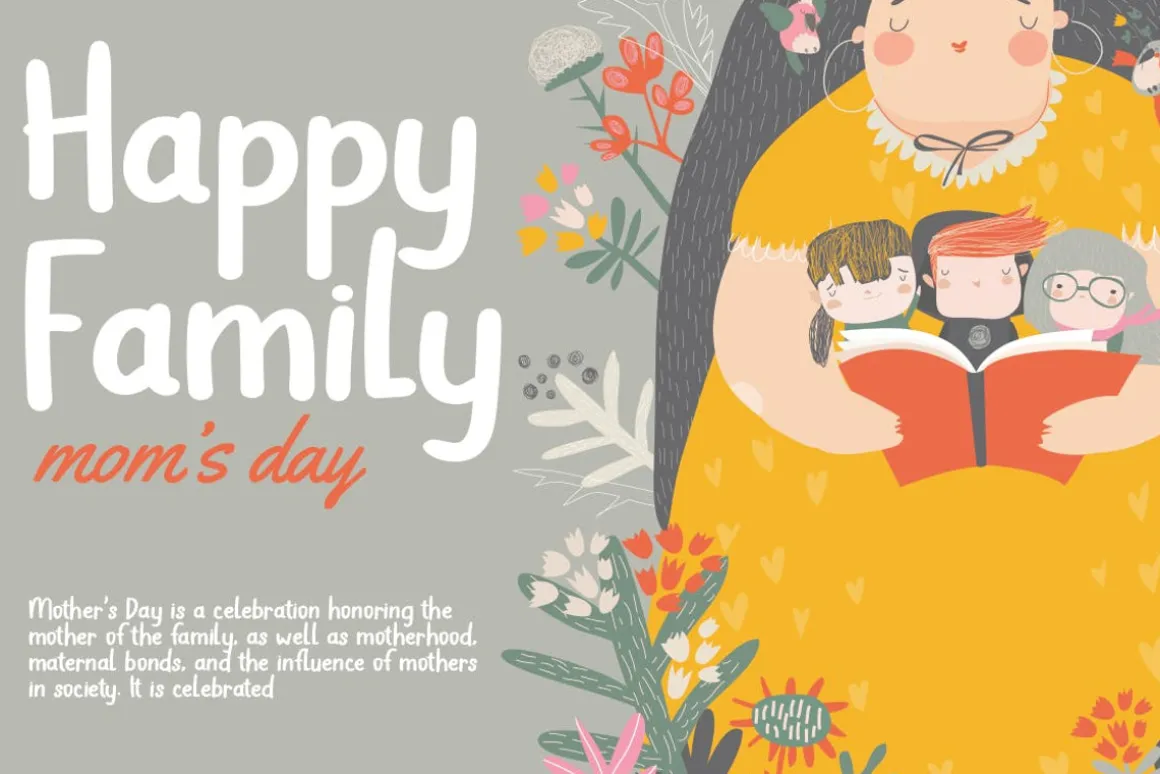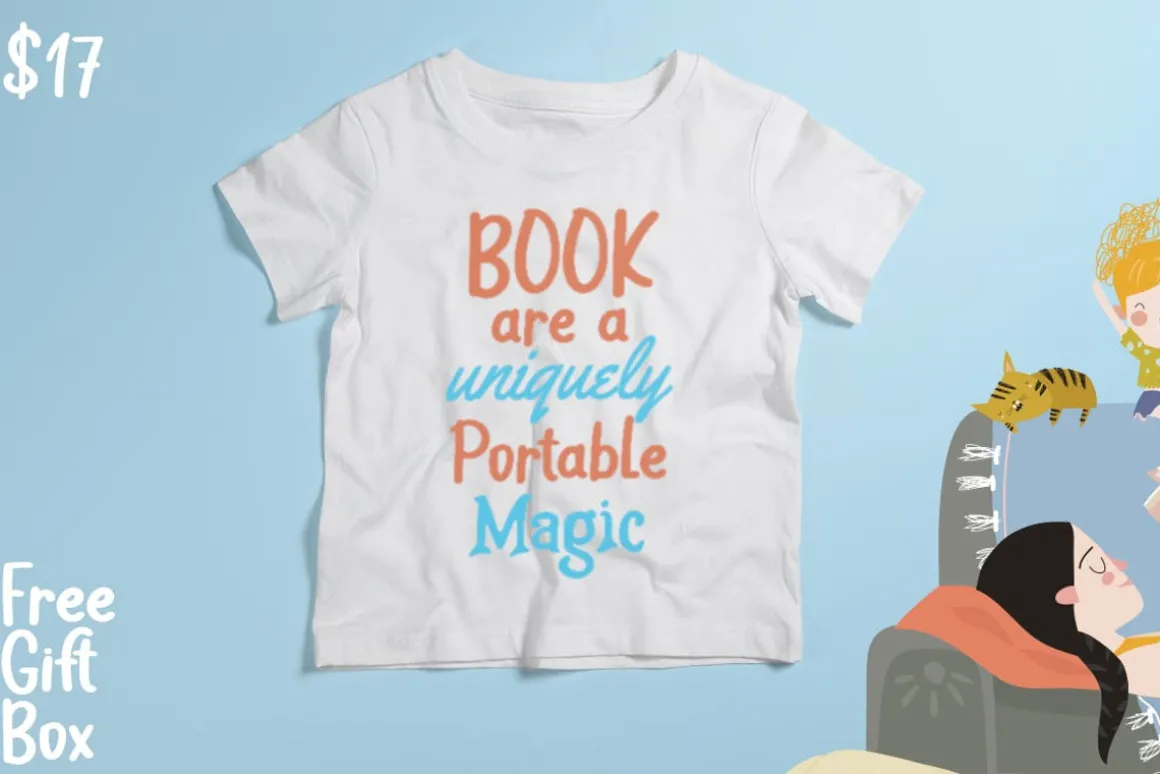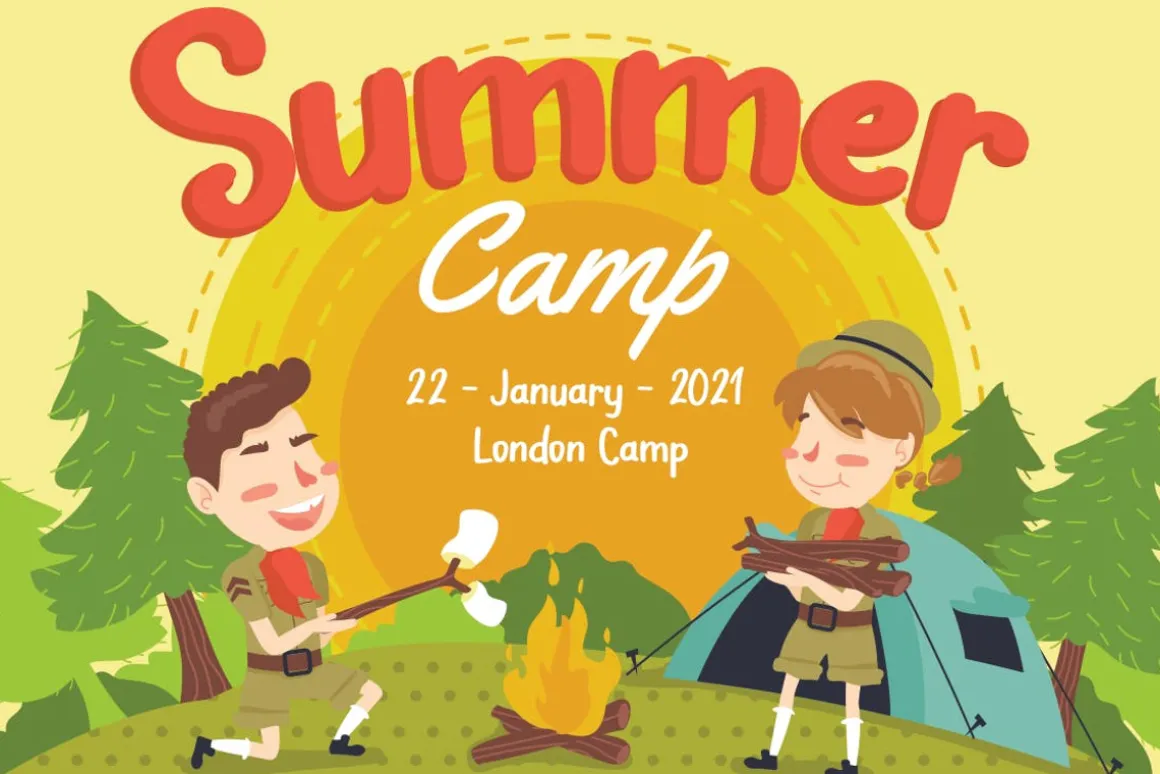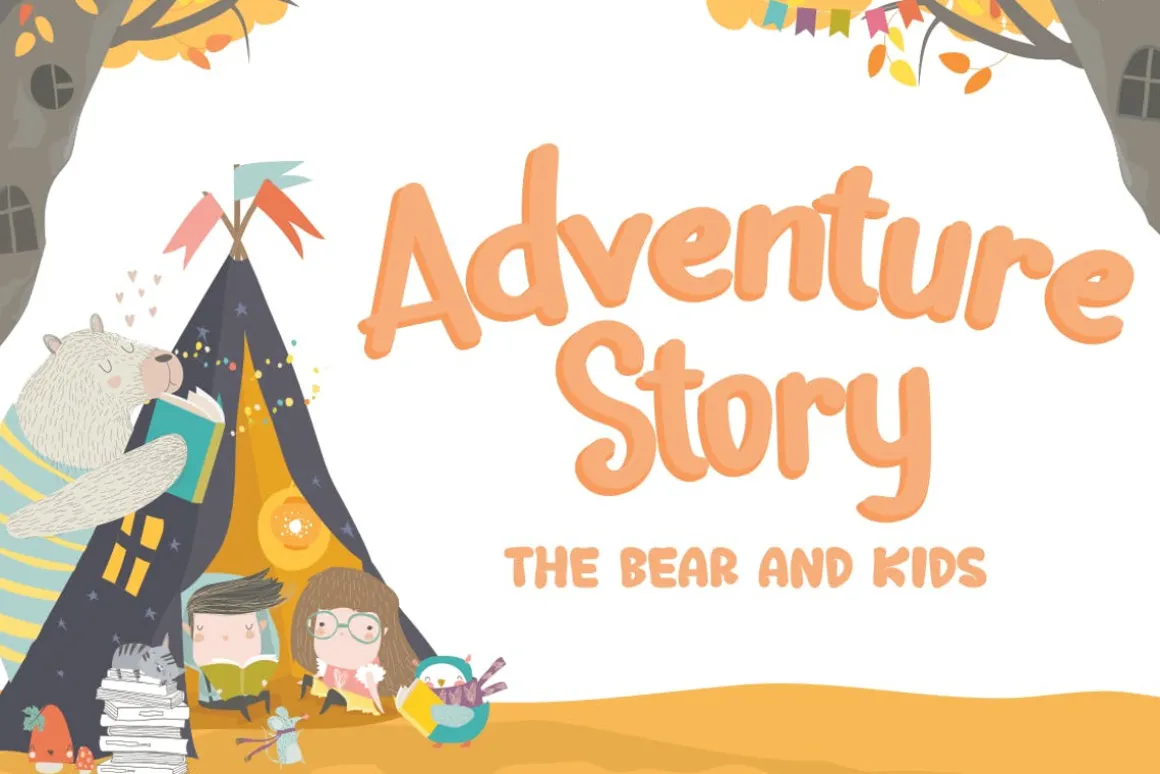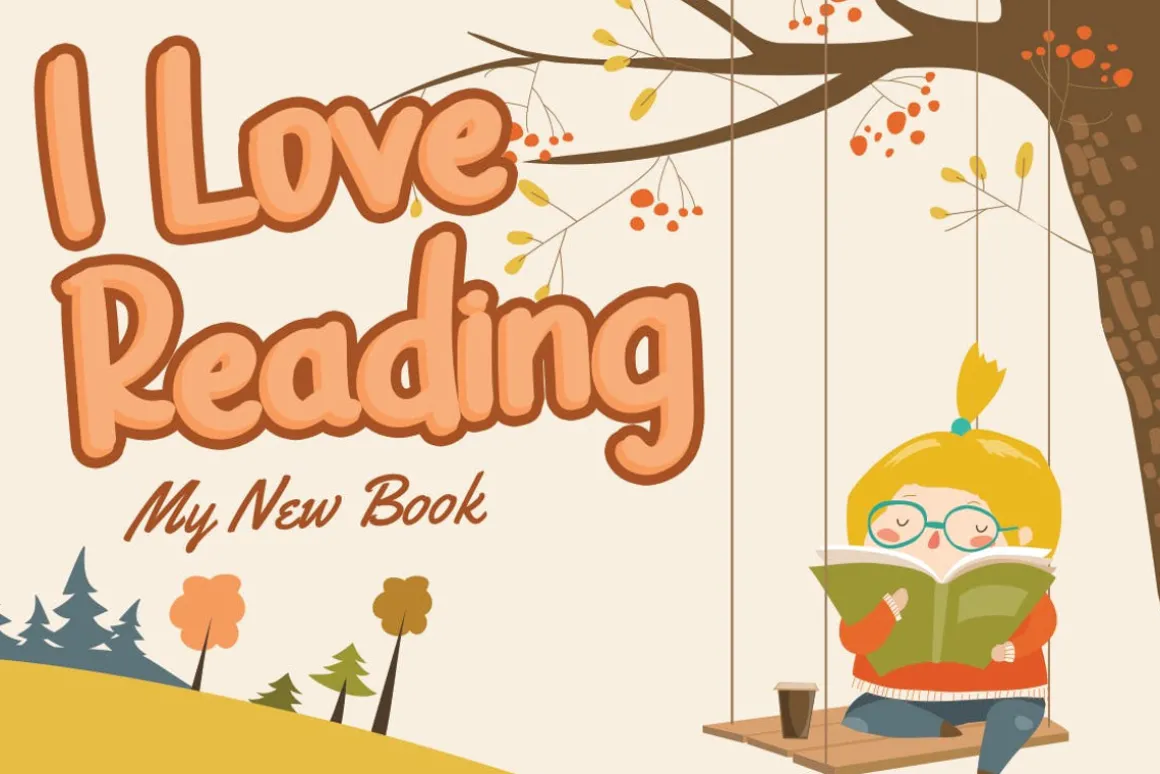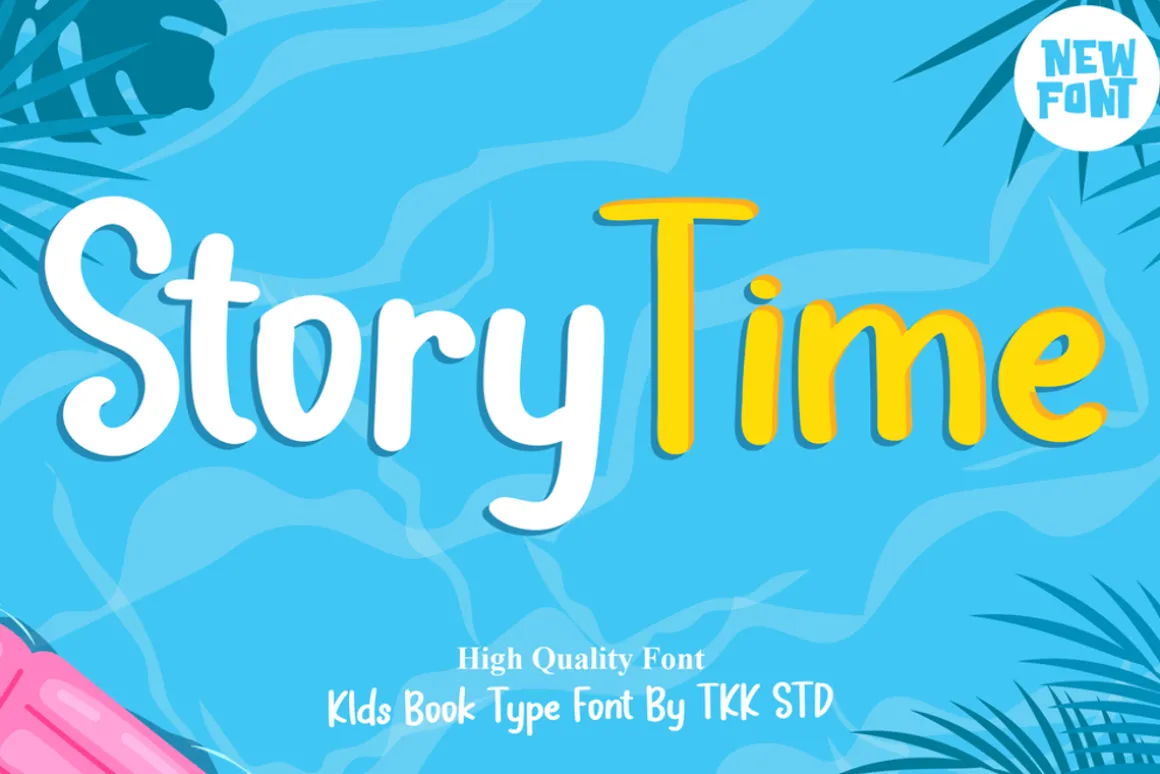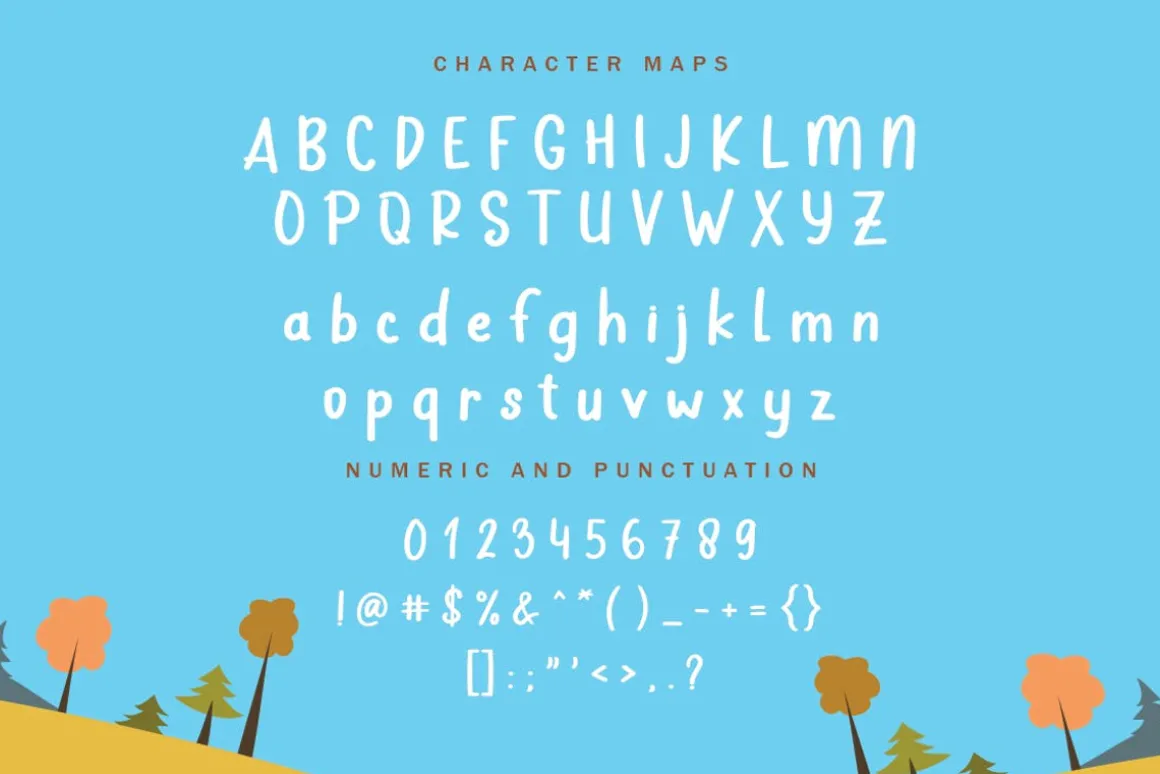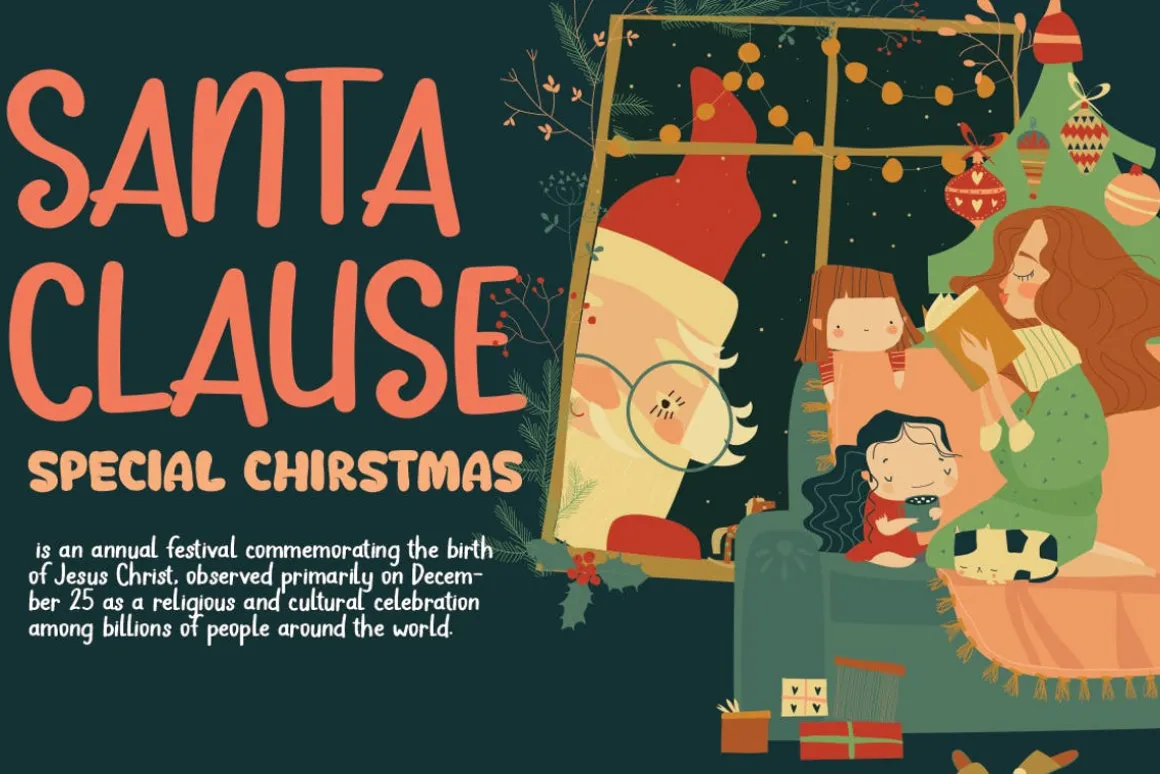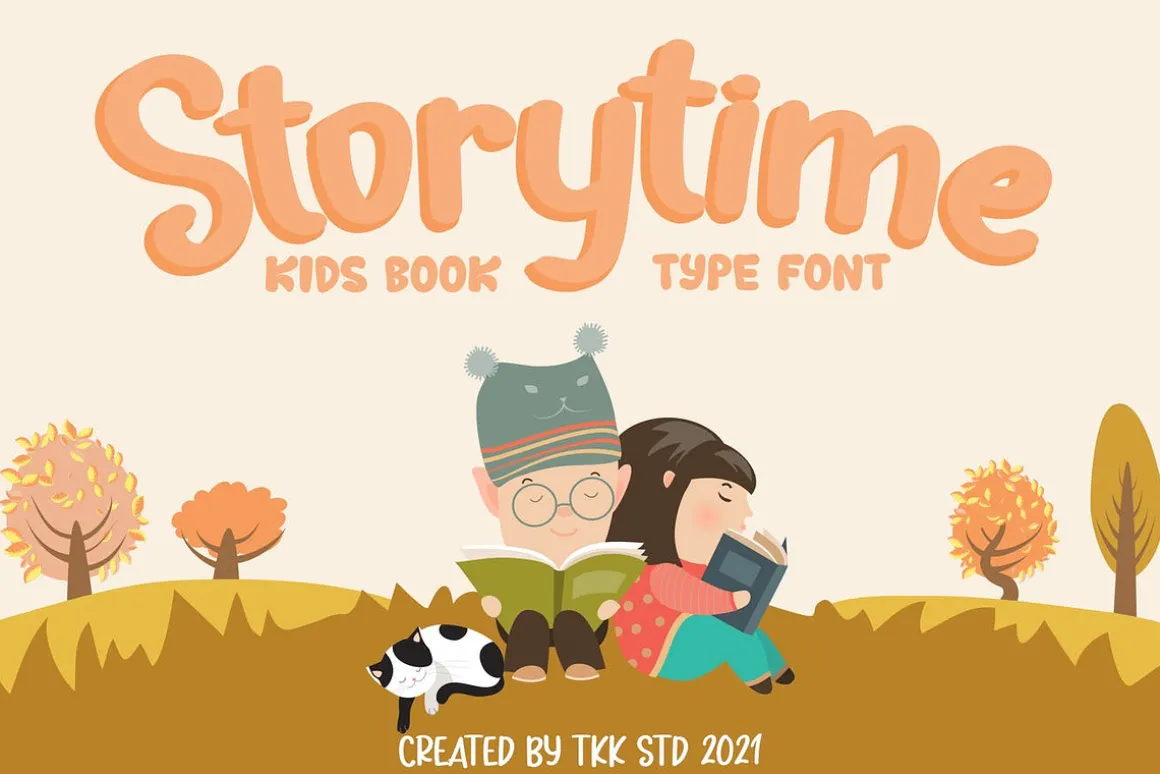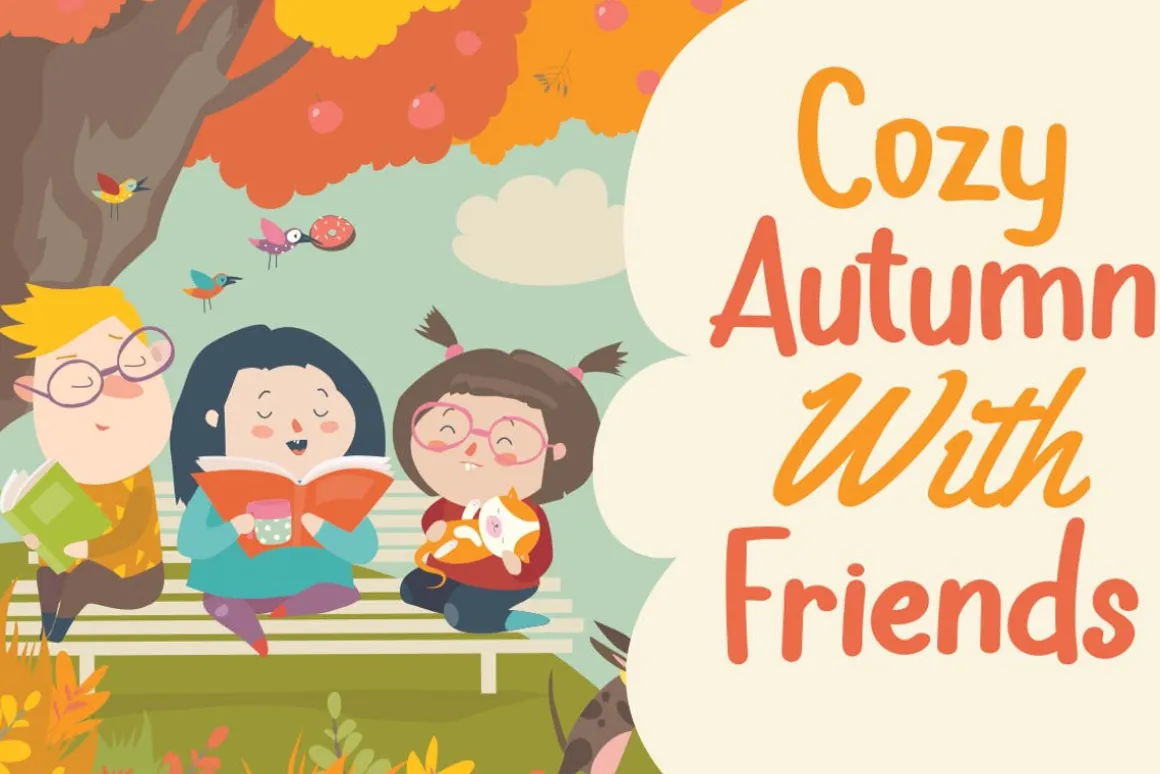
Storytime kids font bring the children handwriting to its own level. When children saw a poster with Storytime kids font being used, they will automatically feel at home. They know that it is written by kids their age, so the message is trustable. The read-ability is well thought so that kids will be engaged longer to the story being written.
Suit perfectly for doodle font, food packaging writing, cafeteria wall scribble font, children book cover, children school product, Instagram story writing, social media post, Facebook post, children poster, wallpaper illustration, catchphrase stickers, magazine, youtube covers, youtube thumbnails, social media page covers and so on…